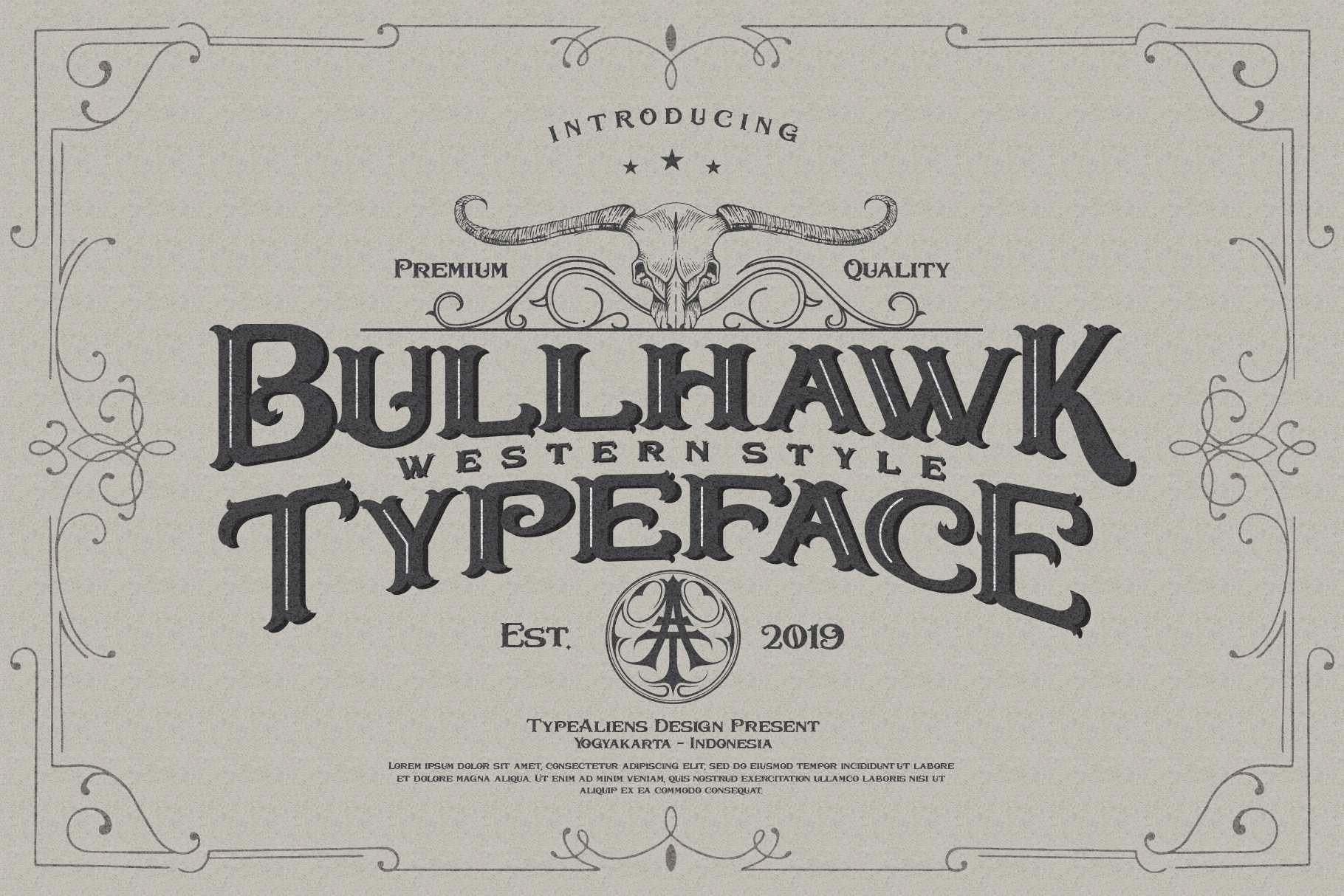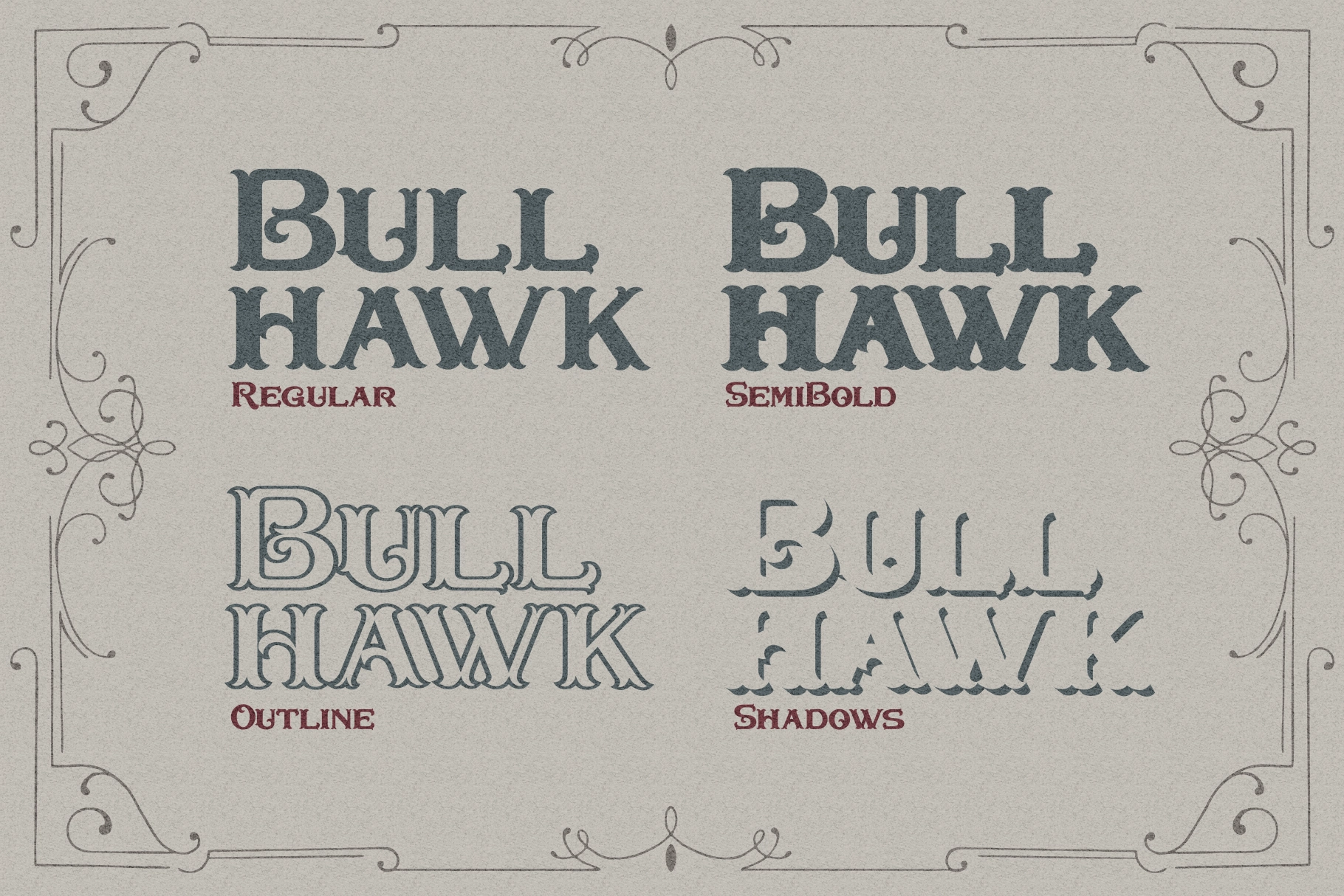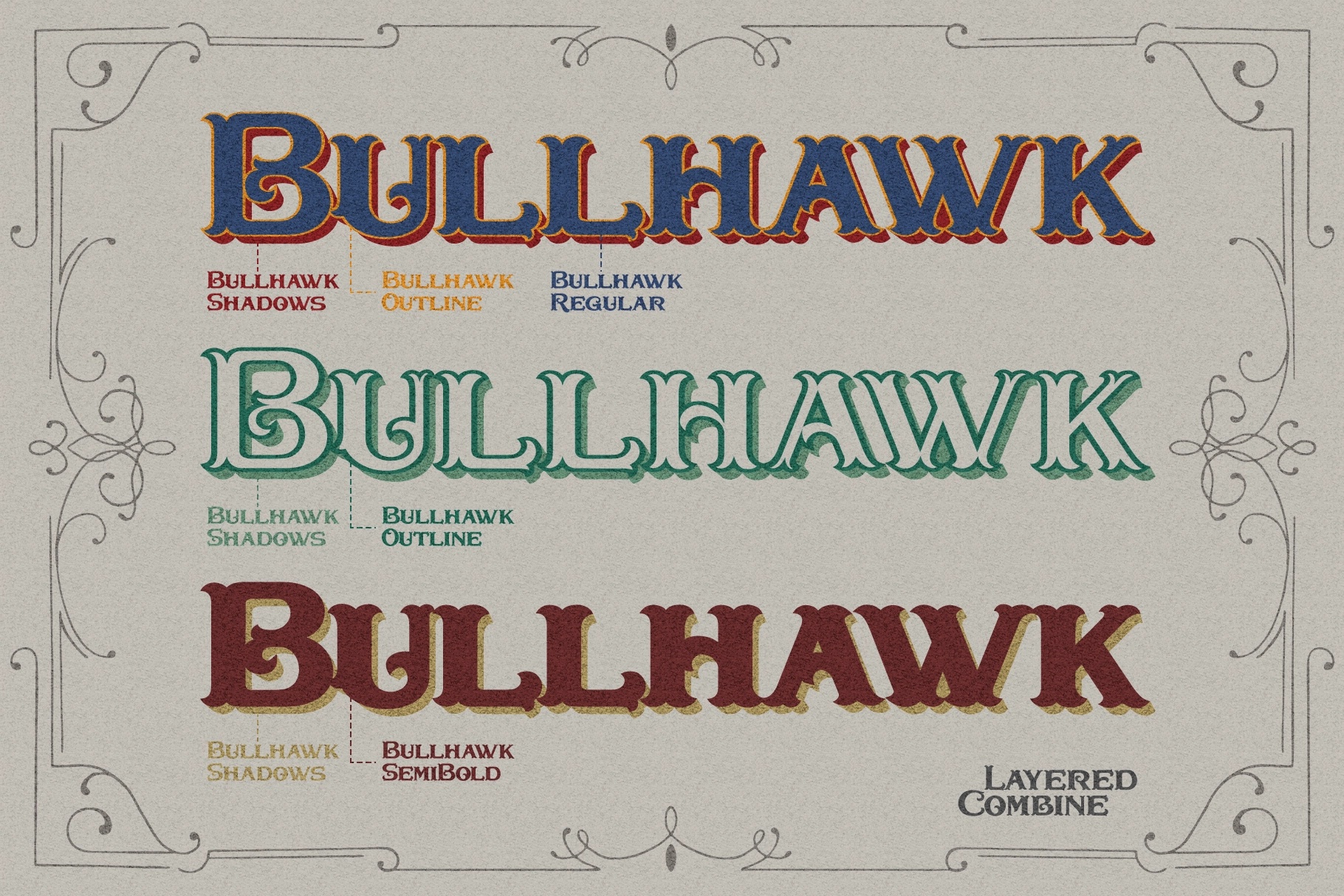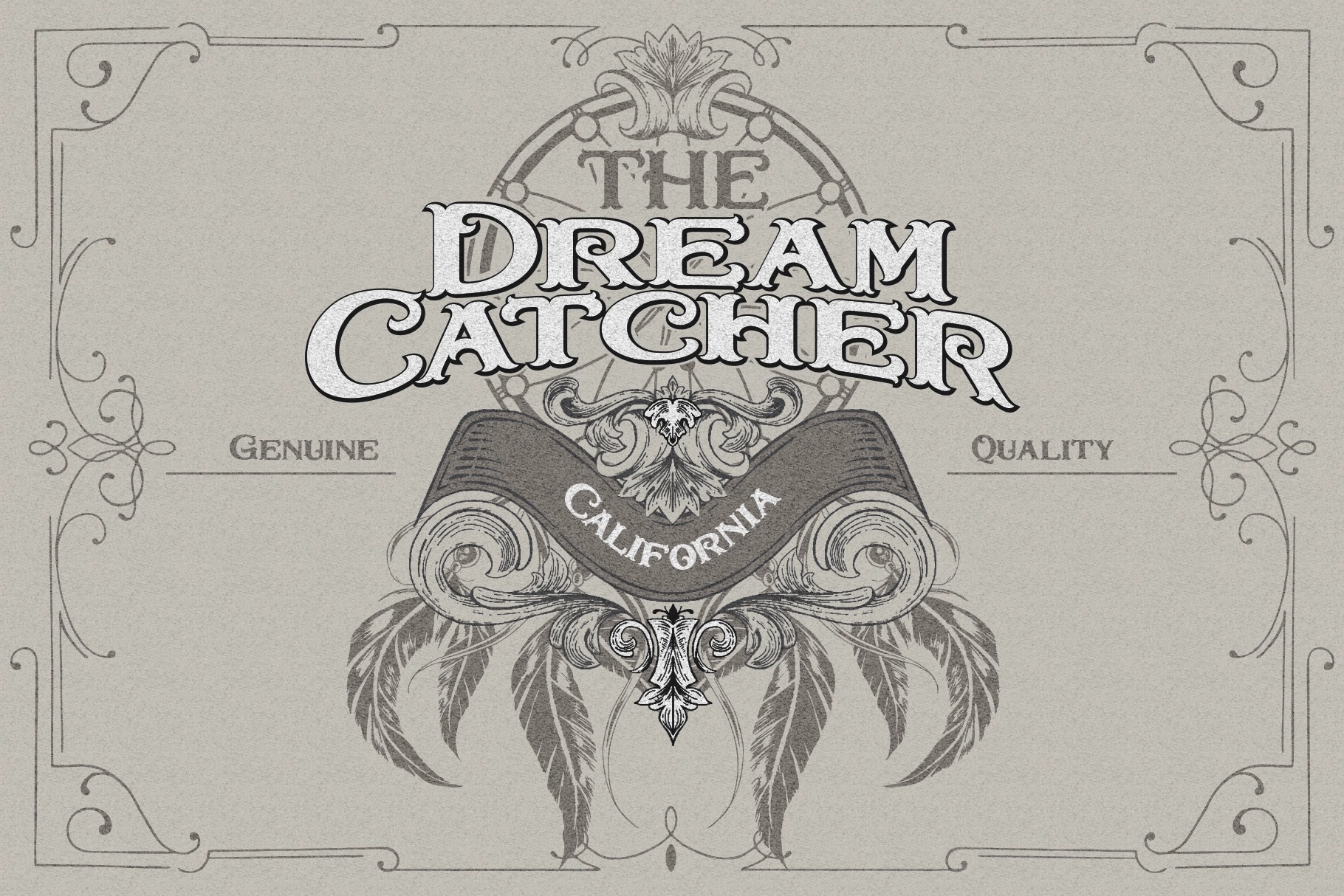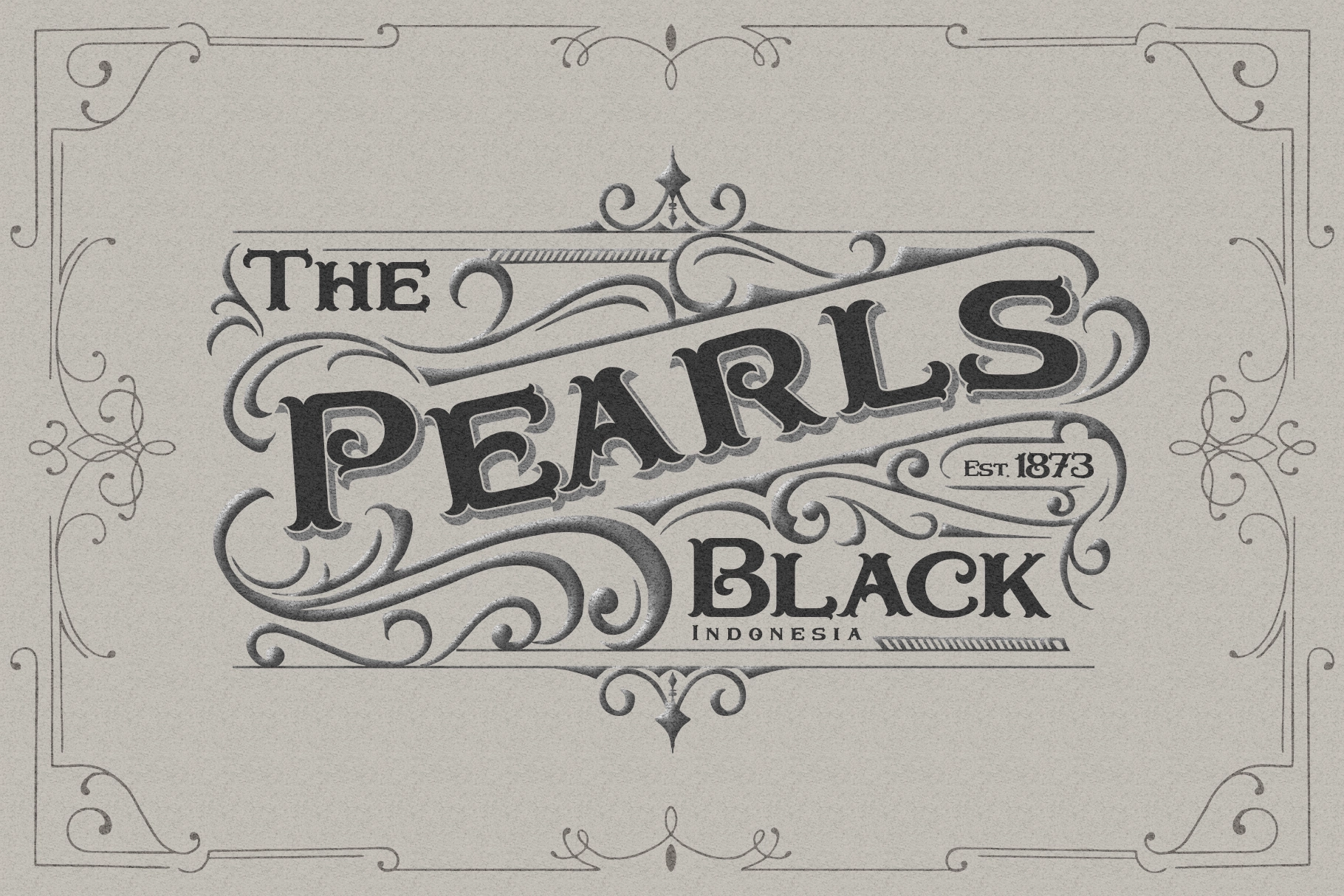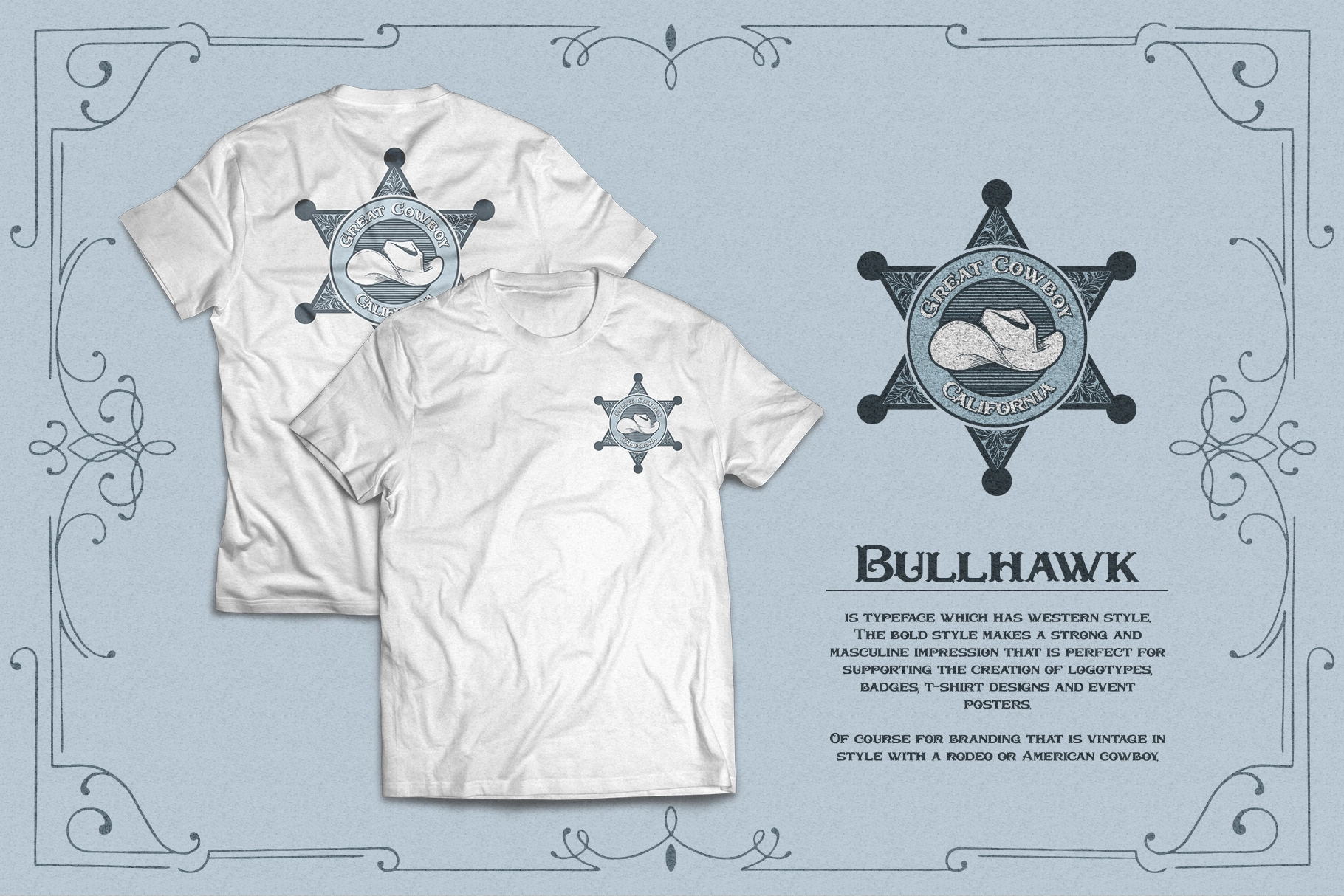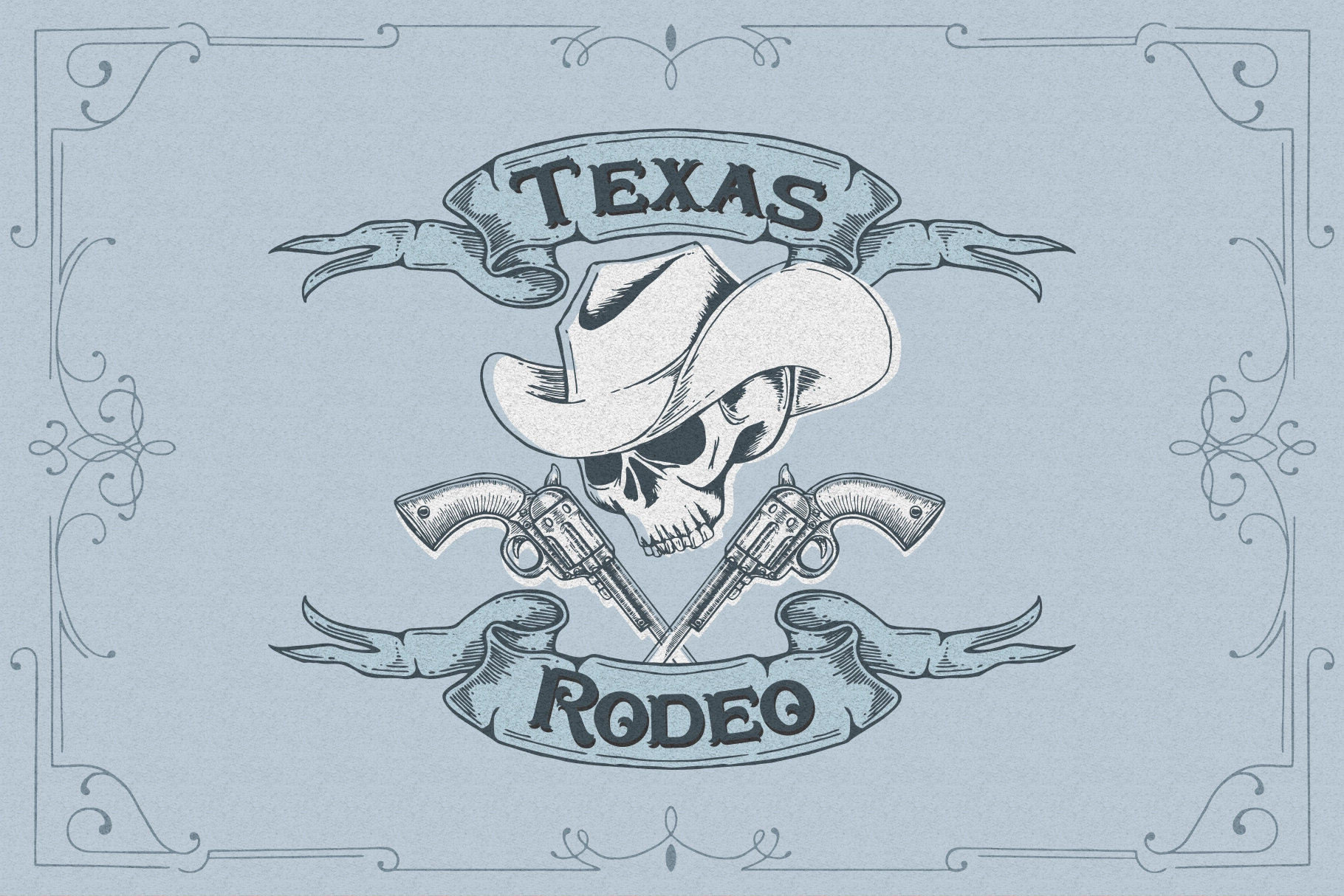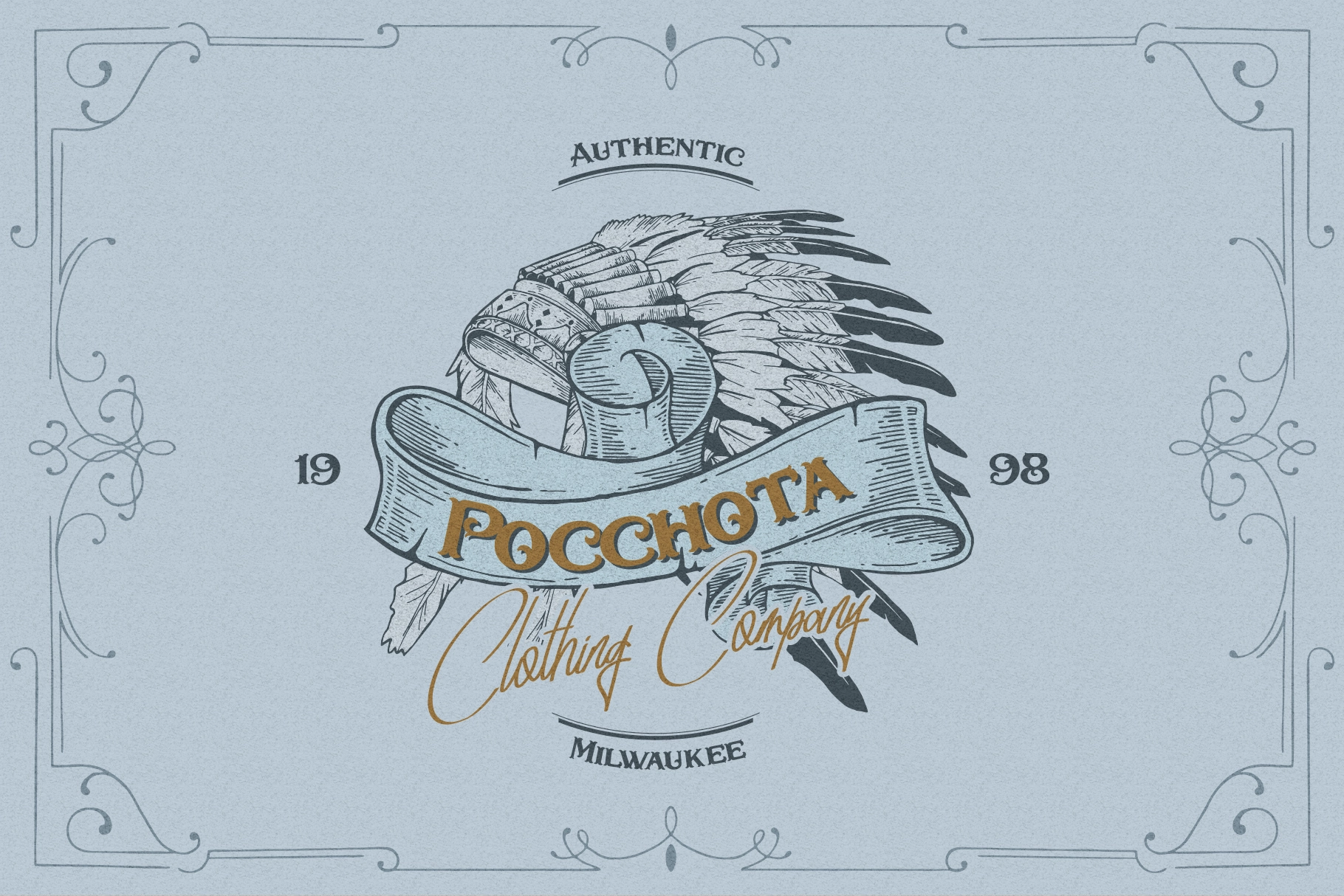
Bullhawk - Vintage Western Font
Bullhawk - Vintage Western Font is a bold retro display typeface inspired by classic western signage, old saloon posters, and vintage Americana aesthetics. Featuring strong letterforms with layered styling options, this font is perfect for creating eye-catching headlines, logo designs, packaging, apparel branding, whiskey labels, country event posters, and rustic editorial layouts.
The Bullhawk family includes Regular, SemiBold, Outline, and Shadow styles that can be combined to create authentic dimensional western typography. Its decorative details and vintage-inspired shapes give every design a rugged, timeless personality while remaining highly readable and versatile for modern creative projects.
- 4 font styles: Regular, SemiBold, Outline, and Shadows
- Uppercase characters, numerals, and punctuation
- Multilingual support included
- Extra ornaments and illustrations